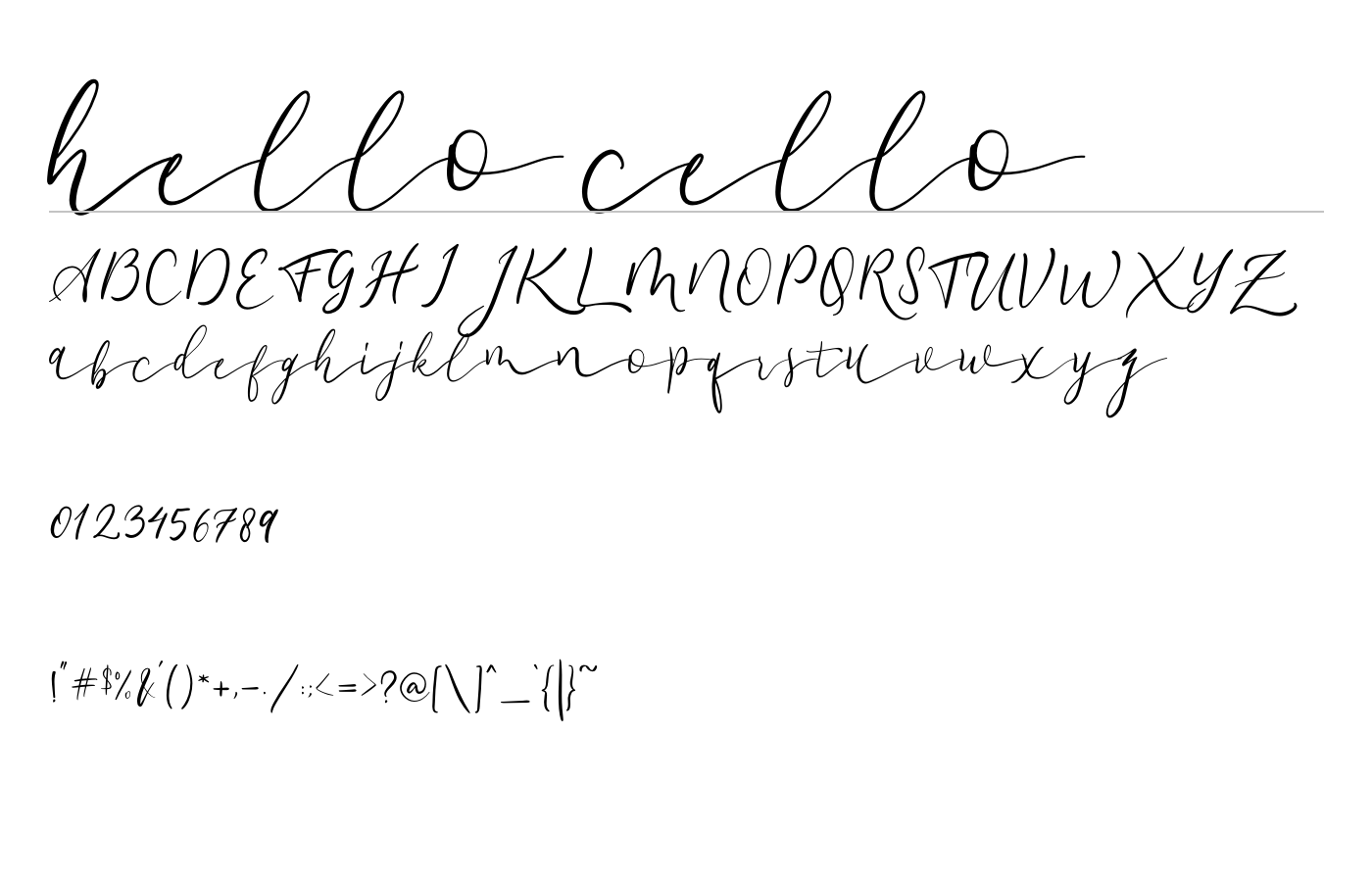
Hello Cello is an elegant, flowing script font characterized by thin, delicate strokes and a graceful, handwritten style that feels both personal and refined. Its tall, narrow letterforms with sweeping connections create a romantic and sophisticated atmosphere, making it perfect for wedding invitations, fashion branding, and high-end editorial designs. This font's airy and graceful personality lends itself well to projects wanting to convey creativity, elegance, and subtle charm.
Hello Cello Font
About Hello Cello Font